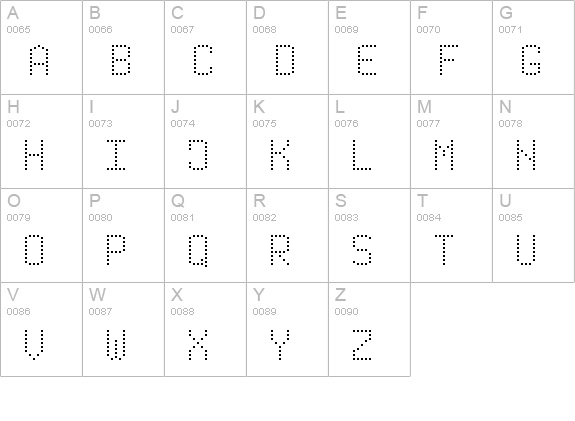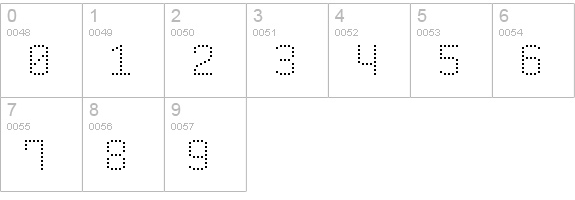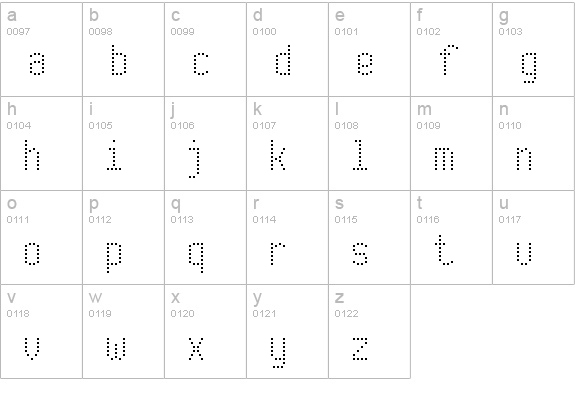
Modern Dot Digital-7 font is a cutting-edge typeface that exudes a contemporary and technological vibe. With its sleek and minimalist design, this font is perfect for projects that require a modern and futuristic look. The unique feature of Modern Dot Digital-7 font lies in its dots, which create a digital effect that is reminiscent of pixelated displays. These dots are meticulously placed to form each letter, giving it a distinctive and eye-catching appearance. Whether you are designing a website, creating a logo, or working on any other digital project, Modern Dot Digital-7 font is sure to make a bold statement. Its clean lines and sharp edges add a sense of professionalism and sophistication to any design. The best part? Modern Dot Digital-7 font is free! Yes, you read that right. You can freely download this font at FontsMarket.com. This means that you can enhance your creative projects without having to worry about breaking the bank. It's a win-win situation! So, why wait? Download Modern Dot Digital-7 font today and take your designs to the next level. With its modern aesthetic and availability at FontsMarket.com, this font is a must-have for any designer looking to add a touch of innovation and style to their work.